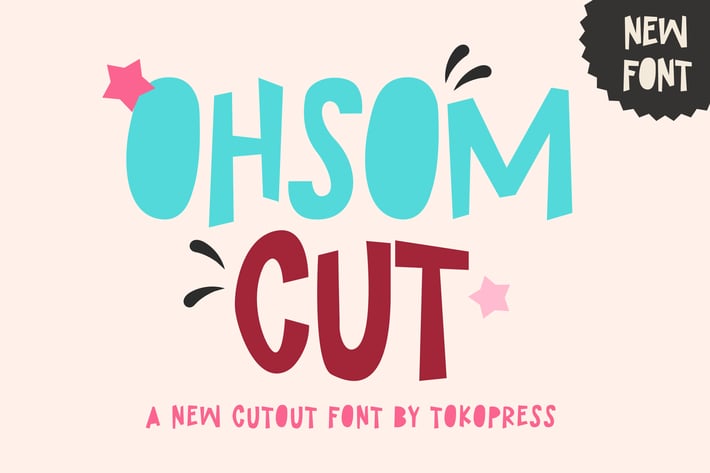
Ohsom Cut - Cartoon Font
Ohsom Cut - Cartoon Children Font
“Ohsom Cut” is a playful cutout-style display font with irregular shapes, soft edges, and expressive rhythm that feels handmade and joyful—ideal for whimsical design storytelling. Its irregular proportions and geometric charm bring a friendly DIY feel that sparks creativity and positivity. The hand-cut aesthetic delivers character and warmth, while the bold yet approachable forms ensure visibility and charm across all design sizes.
Perfectly suited for Instagram graphics, kids books, planners, greeting cards, or classroom decor, Ohsom Cut blends colorful creativity with authentic personality. It’s a font that feels crafted—not coded.
Whether you're building a cheerful birthday card, a classroom poster, a handmade product label, or a positive Instagram quote, Ohsom Cut gives your project a handmade spirit with emotional warmth. Designers love its collage-like shapes that echo cut-paper crafts and DIY charm—perfect for brands or creators looking to evoke joy, friendliness, and a touch of innocence.
Its child-friendly legibility and quirky rhythm make it perfect for brands targeting young audiences, hobbyists, and feel-good products. Ohsom Cut isn’t just a font—it’s a vibe.
Key Features :
Playful cutout display style with quirky proportions
Bold, chunky characters with childlike innocence
Eye-catching yet approachable for everyday design
Perfect for cards, classroom walls, journals, packaging, and feel-good content
Communicates friendliness and imagination instantly
Distinct shapes help create strong brand recall